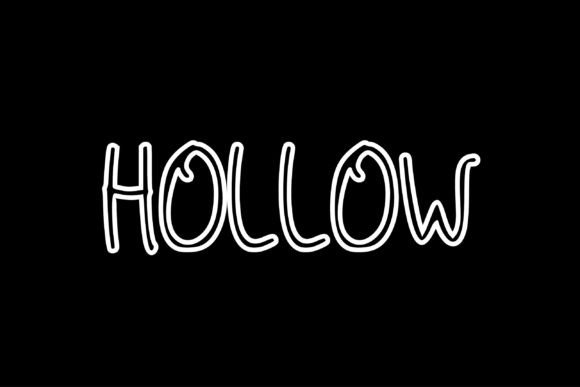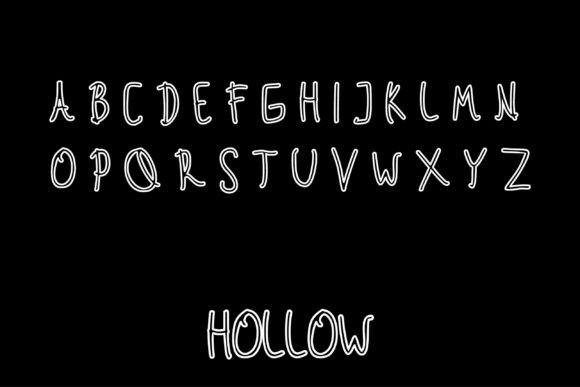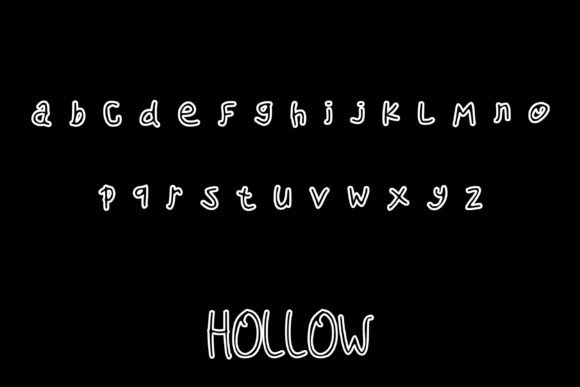
About Hollow Font
“Hollow is a fun and whimsical handwritten font that brings a playful and lighthearted touch to your projects. Add it confidently to your creative endeavors, and you will love the delightful results!
The charm of Hollow lies in its fun and whimsical script, where each letter exudes a sense of playfulness and creativity. This font becomes a go-to choice for designers seeking a lively and expressive style for various applications.
Whether you’re working on playful designs or adding a touch of whimsy to your projects, Hollow stands out as a font that brightens up your creations. Its versatility allows it to adapt seamlessly to different themes and contexts.
Imagine Hollow infusing your projects with a fun and whimsical handwritten touch, making your designs visually engaging. Its lighthearted nature becomes the defining element that sets your creations apart, creating a visual experience that resonates with joy and creativity.
As you explore the nuances of Hollow, you’ll discover its potential to transform ordinary projects into visually delightful expressions. Let it be the font that brings a touch of playfulness to your creative vision, making your designs stand out with a fun and whimsical aesthetic. With Hollow, every stroke becomes a brushstroke of joy, making it a delightful asset for designers seeking a lively and versatile font.”